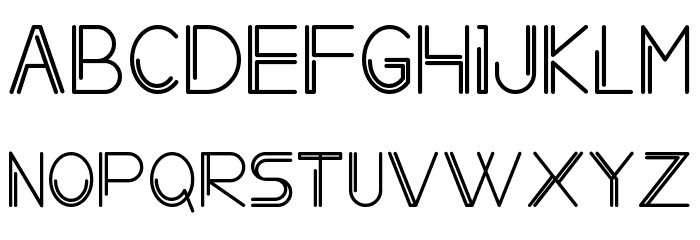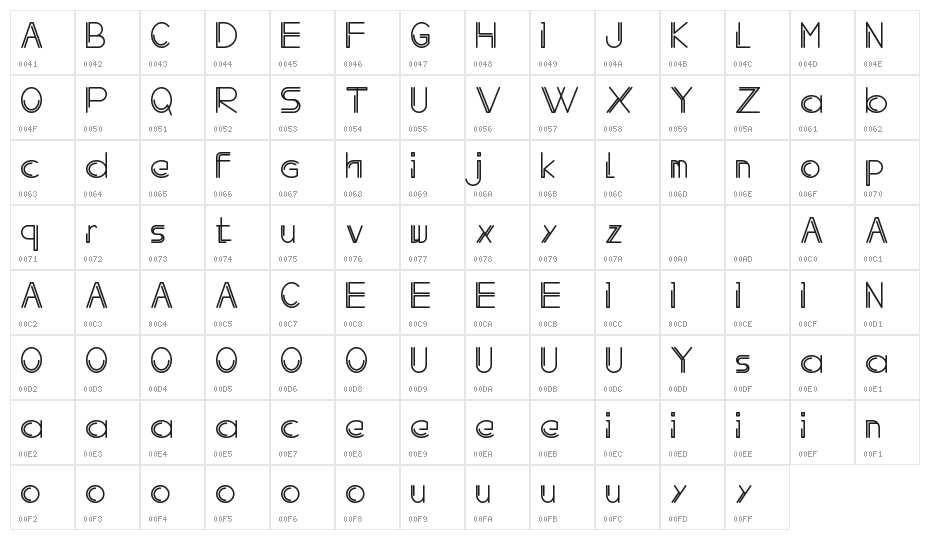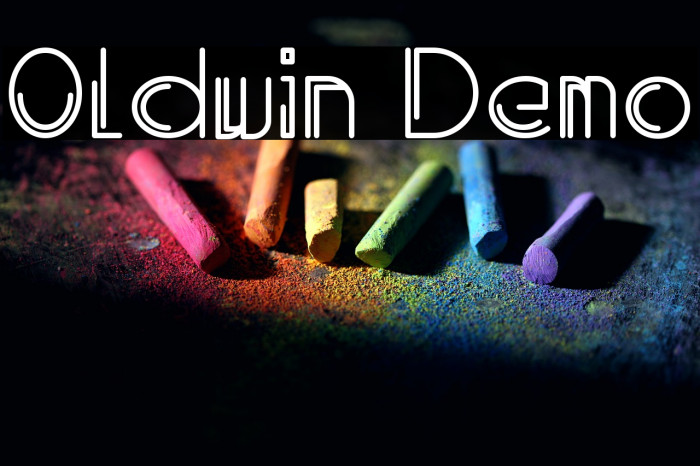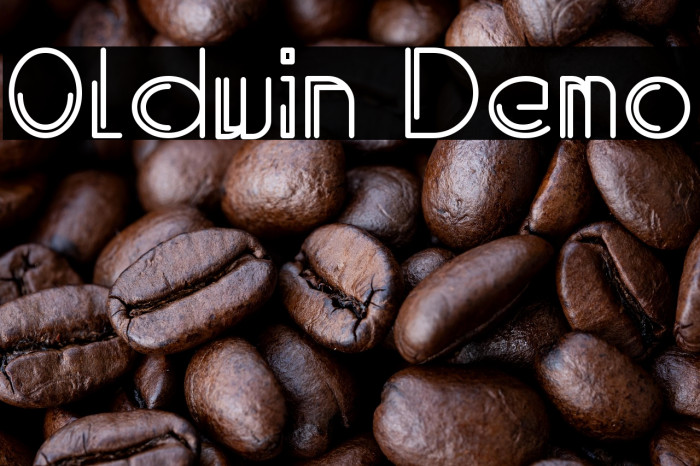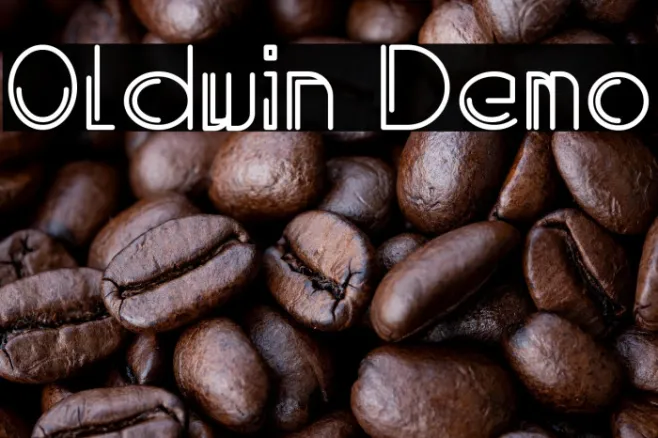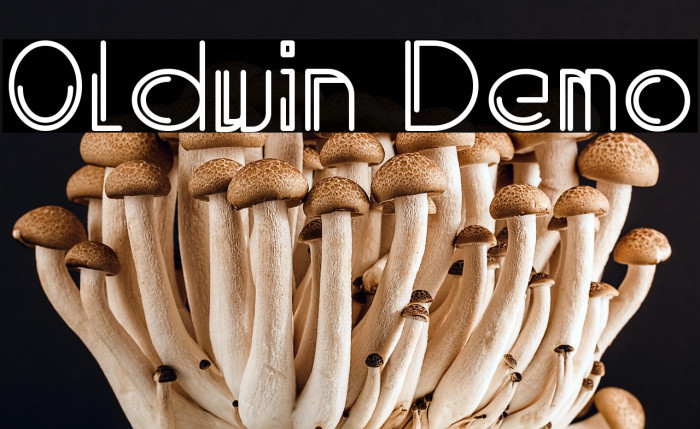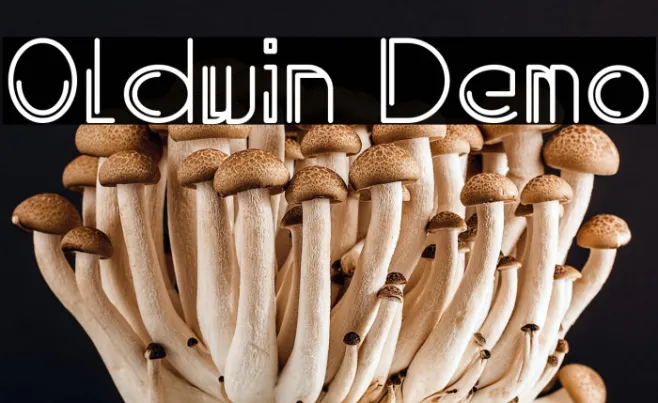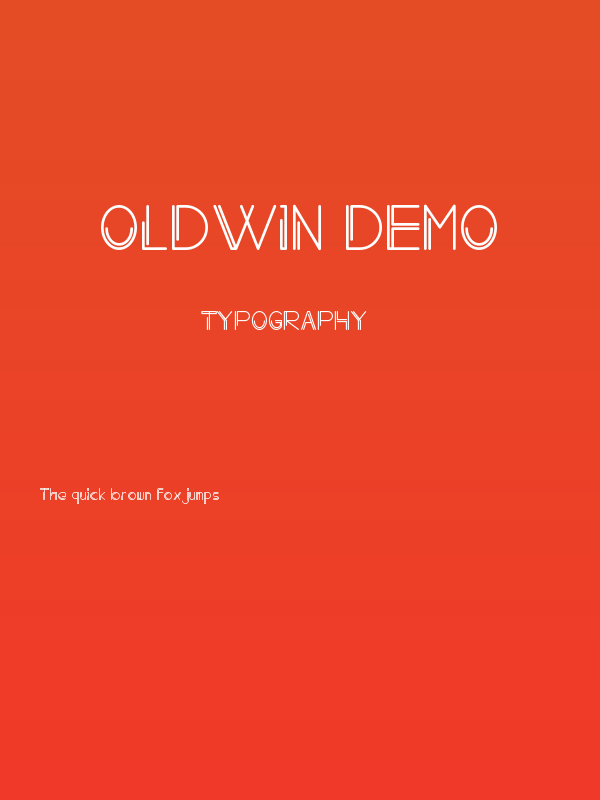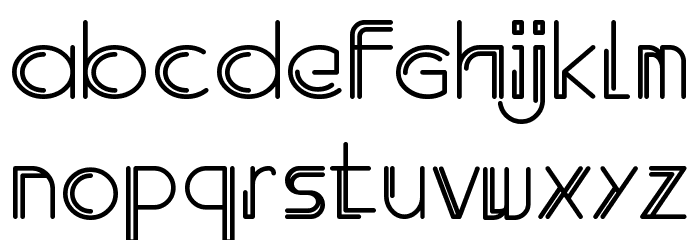
Oldwin Demo Font
Oldwin Demo Description
This font features a unique and modern design with a geometric and linear style. The characters are composed of clean, straight lines and curves that create a sense of movement and rhythm. The uppercase and lowercase letters maintain a consistent height, contributing to a harmonious appearance. The strokes are uniform in thickness, providing a balanced look. The font's design is both futuristic and retro, making it versatile for various creative applications. It includes a full set of uppercase and lowercase letters, numbers, and a selection of special characters, ensuring comprehensive usability.